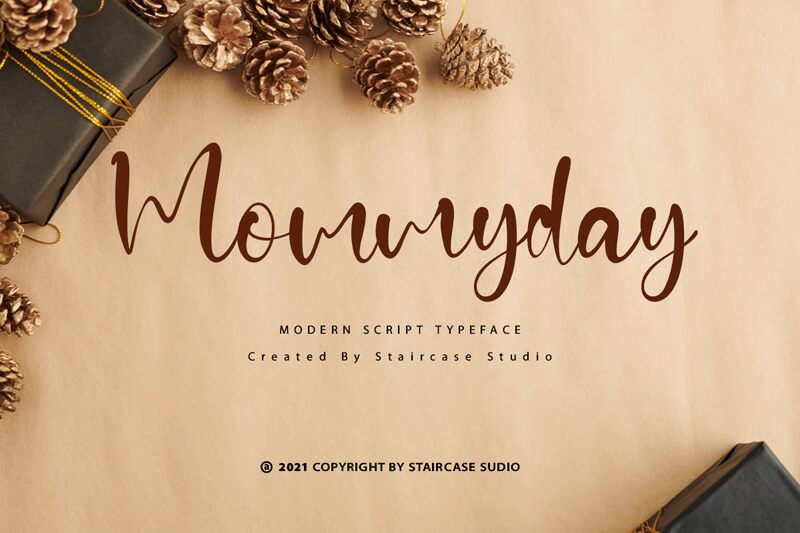
Say hello to Mommyday, the semi-light modern script font designed by Staircase Studio. This versatile typeface is perfect for adding elegance and sophistication to a variety of design projects, from wedding invitations and greeting cards to branding materials and social media graphics. With its flowing curves and graceful lines, Mommyday evokes a sense of femininity and charm that is sure to captivate any audience. Whether you're looking to create a romantic mood or add a touch of whimsy, this font is the perfect choice for designers who want their work to stand out from the crowd.